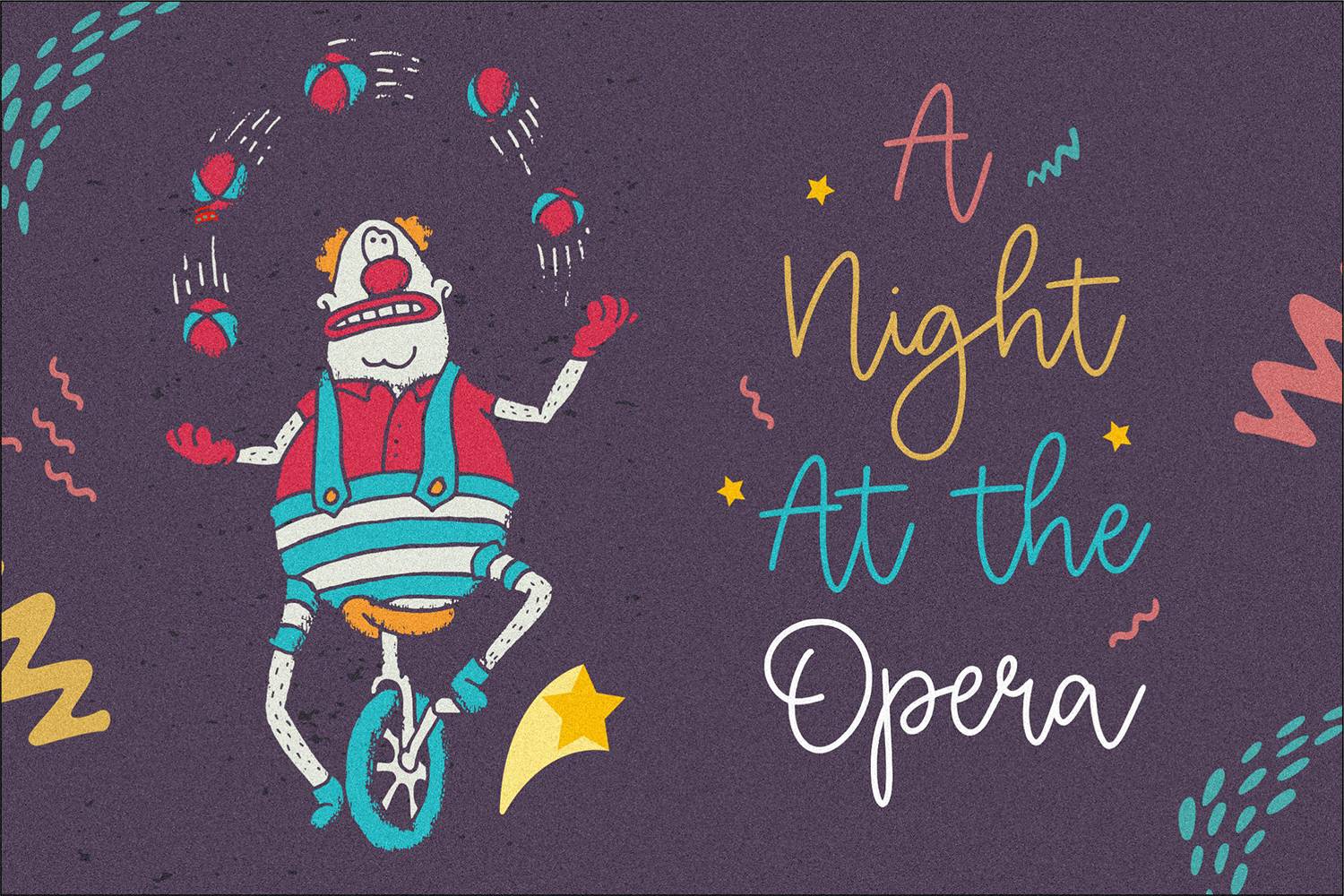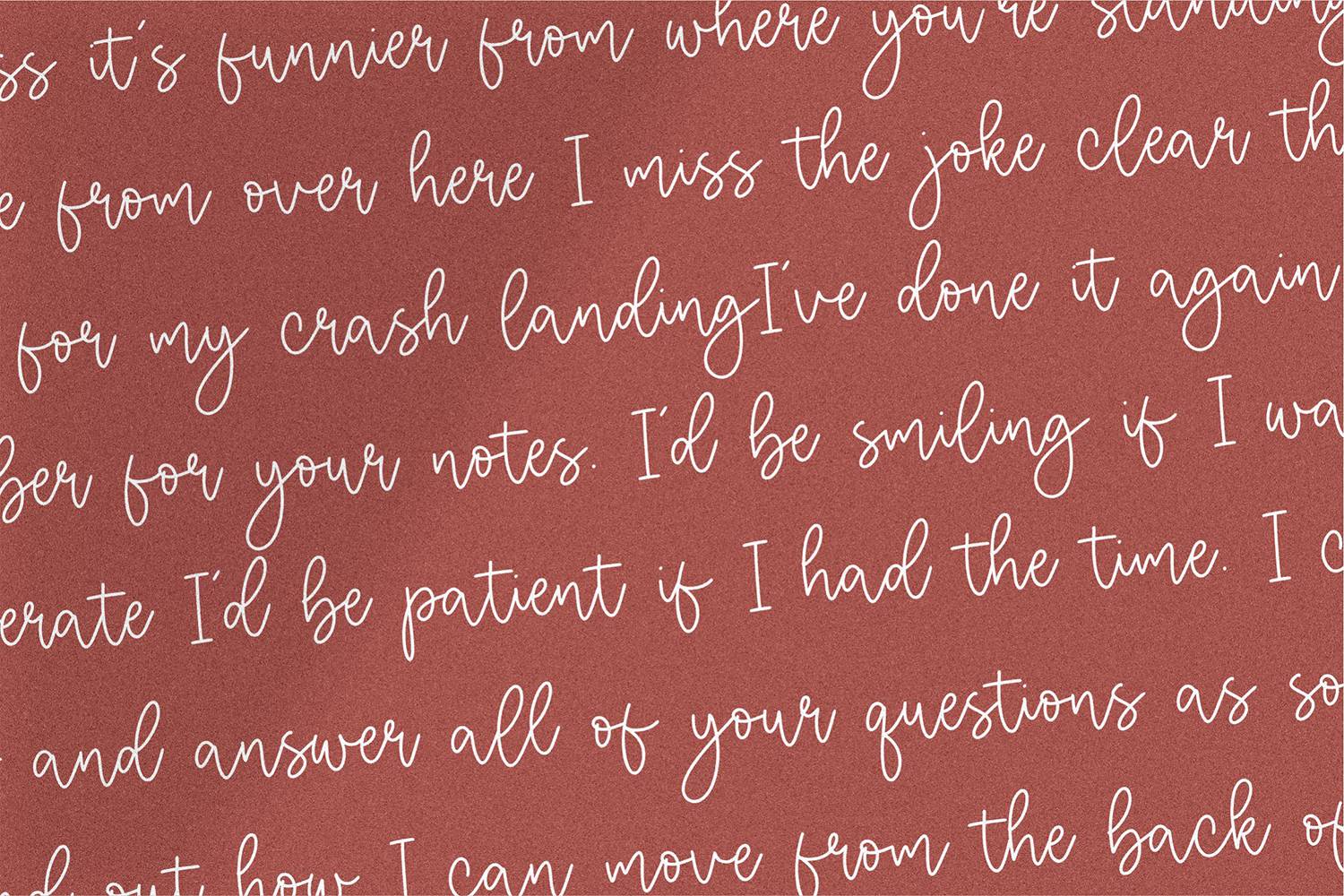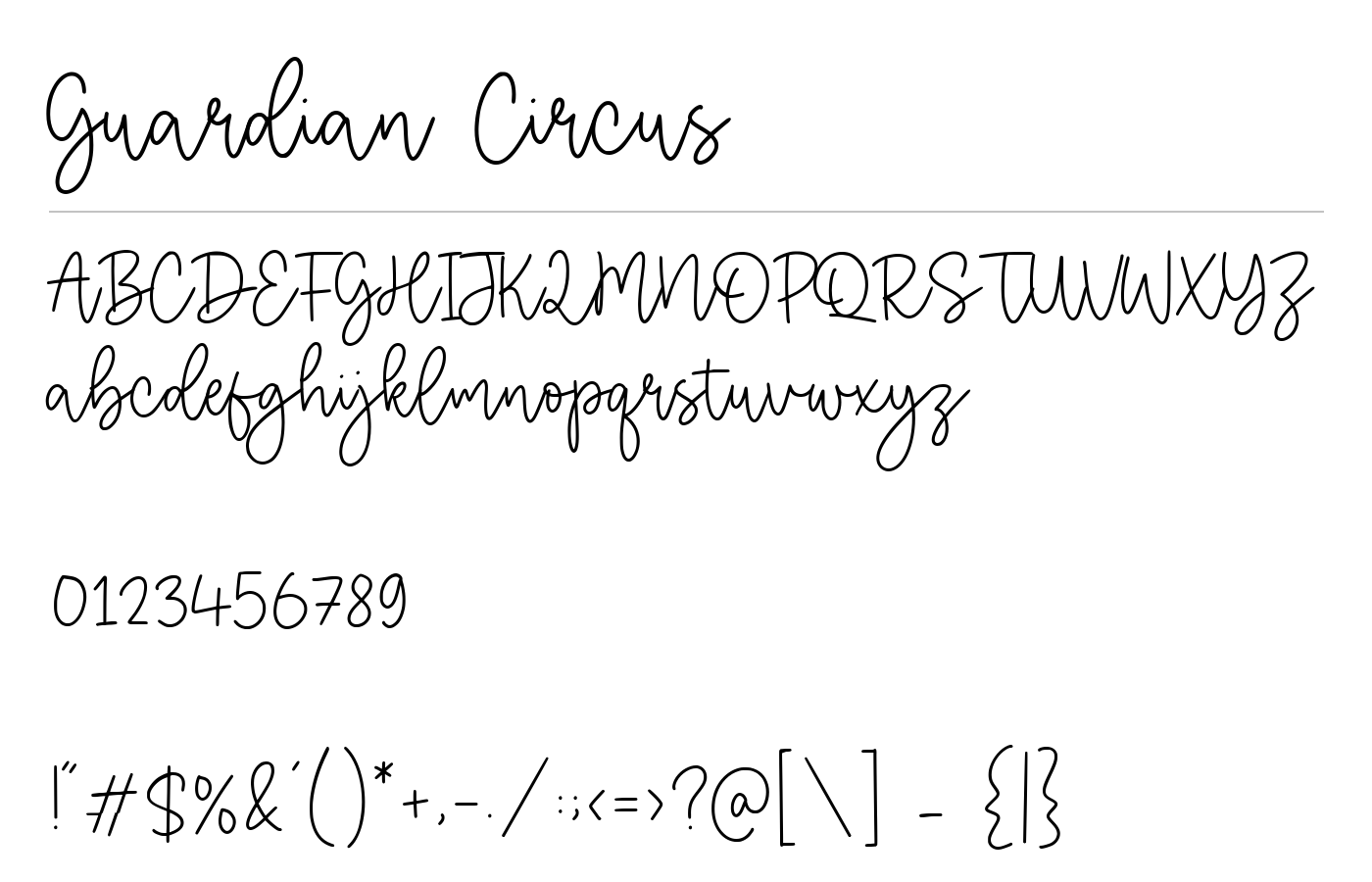
Guardian Circus is a whimsical, handwritten script font with a light, airy feel and playful loops, making it perfect for creative and casual designs. Its tall x-height and thin strokes give it an elegant yet approachable personality, ideal for invitations, branding, and social media graphics that aim to convey friendliness and charm. This font works best in headlines or decorative text where its unique, flowing style can truly shine.
Guardian Circus Font
About Guardian Circus Font